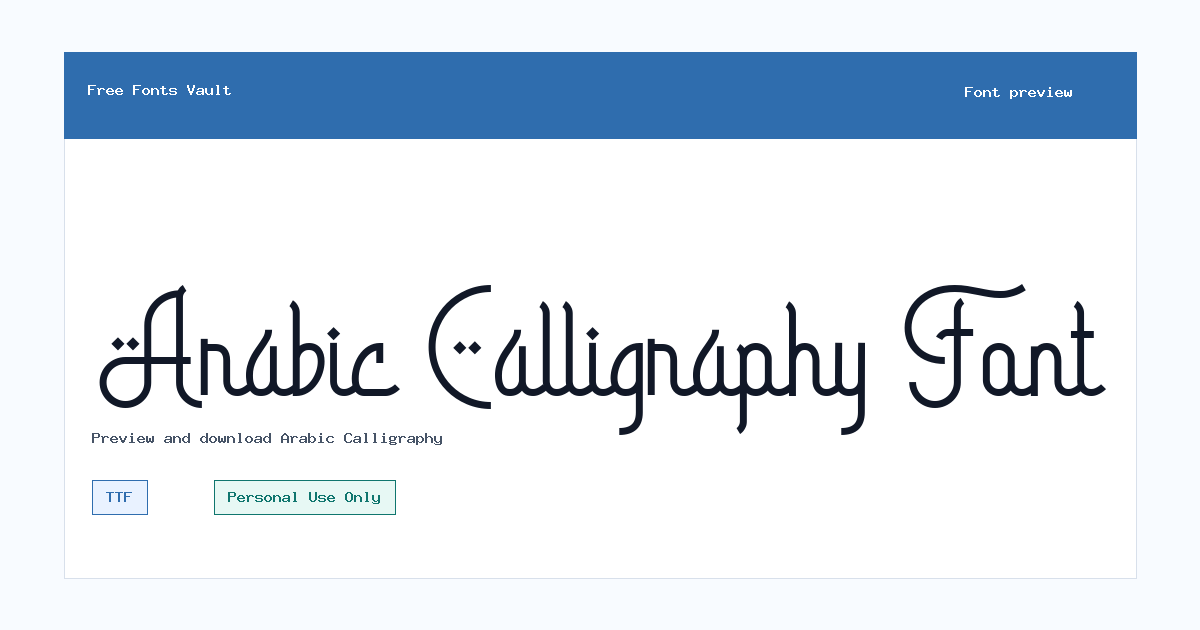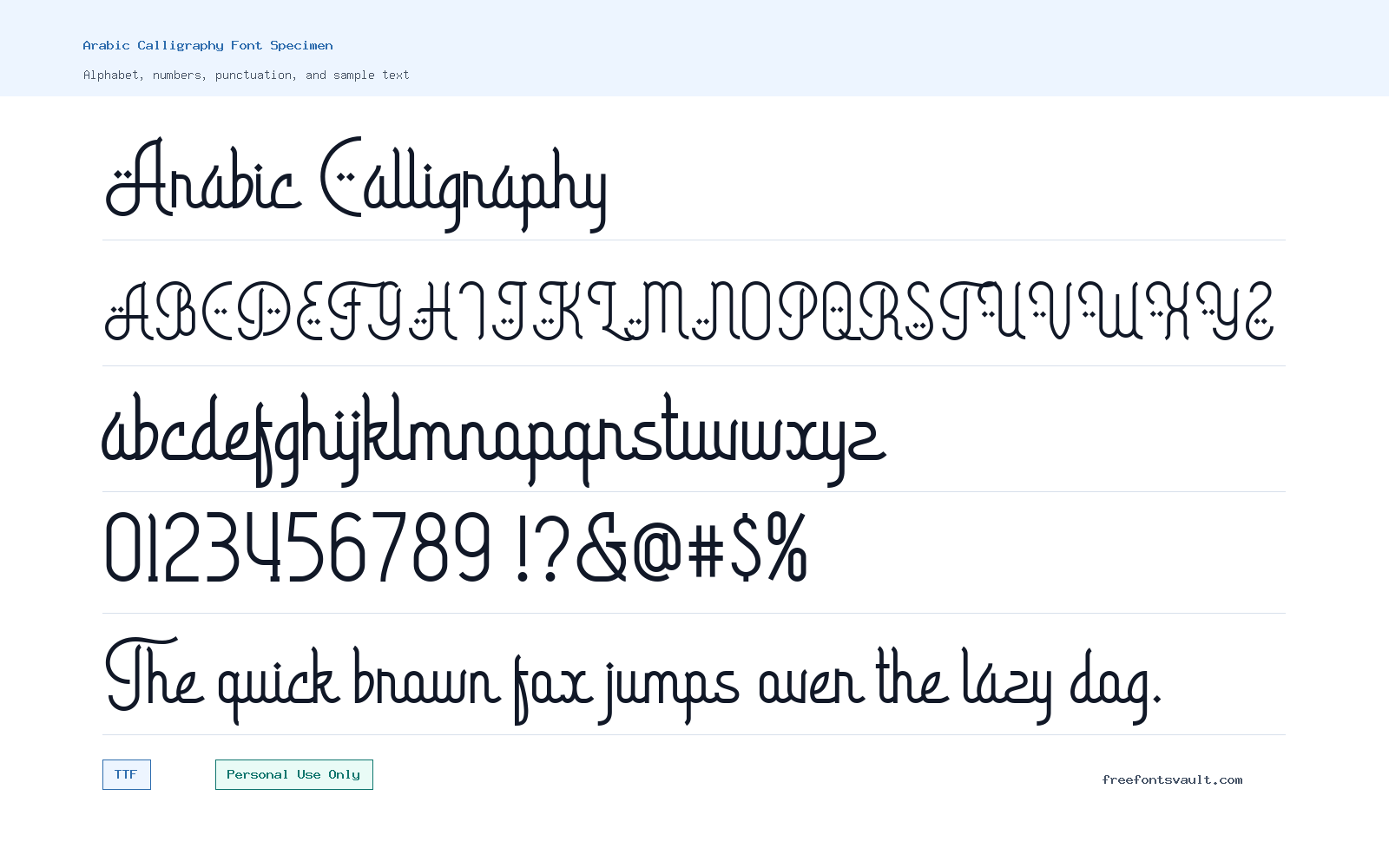
Arabic Calligraphy
- Designer Bangkit Tri Setiadi
- Foundry Blankids Studio
Arabic Calligraphy font.
Arabic Calligraphy is a decorative script-style font with a calligraphic look, made for personal-use design projects where the lettering needs to feel expressive and handcrafted.
About Arabic Calligraphy Font
Arabic Calligraphy works best as a display font, not as a long-reading text face. Its value is in the shape and rhythm of the letters: use it where a few words need to stand out, such as a title, name, invitation heading, poster line, greeting card, or social media graphic. Because the font is supplied as a regular TTF file, it should be easy to test in common design apps after installation. Before downloading, type your own words in the preview box and check the characters you plan to use, especially if your project needs punctuation, numbers, accents, or multilingual text.
For best results, keep the wording short and give the letters enough room. Decorative calligraphy fonts can lose clarity when they are squeezed into small sizes, used in all caps, or placed over busy backgrounds. Try it first in a large heading size, then adjust spacing and contrast until the forms are clear. It can pair well with a plain sans serif or simple serif for supporting text, because the contrast lets the calligraphic lettering remain the focal point without making the whole layout hard to read.
- Decorative calligraphy style suited to short display text rather than body copy
- Invitation headings, greeting cards, posters, and event graphics
- Logotype mockups, name treatments, social posts, and short decorative titles
What is Arabic Calligraphy best used for?
It is best for short display text such as headings, invitations, posters, cards, social graphics, and decorative name treatments.
Should I use Arabic Calligraphy for paragraphs?
It is not the best choice for long paragraphs. Use it for a title or accent text, then choose a simpler font for body copy.
Who designed Arabic Calligraphy?
The font is credited to Bangkit Tri Setiadi, with Blankids Studio listed as the foundry.